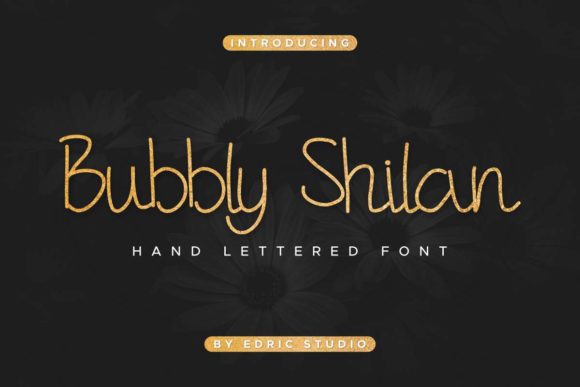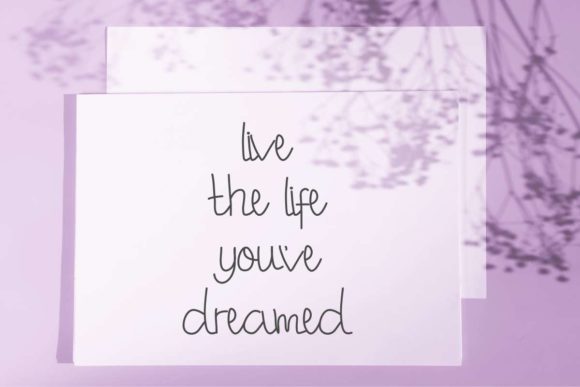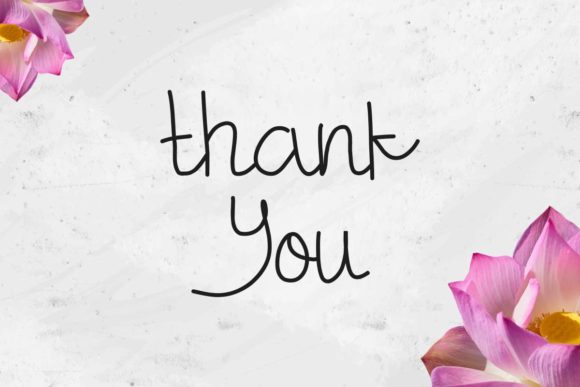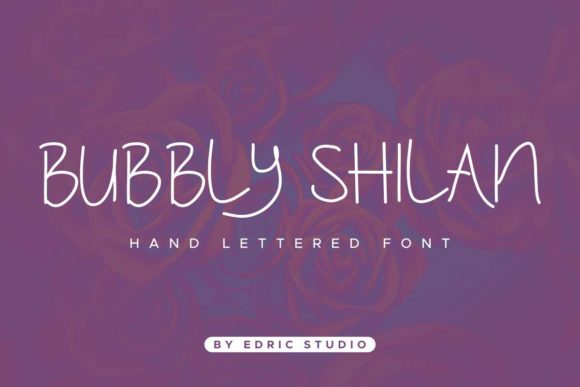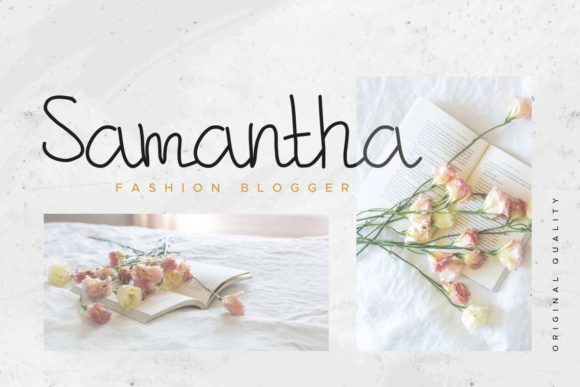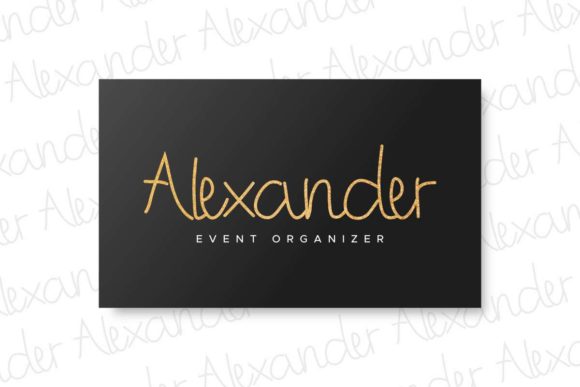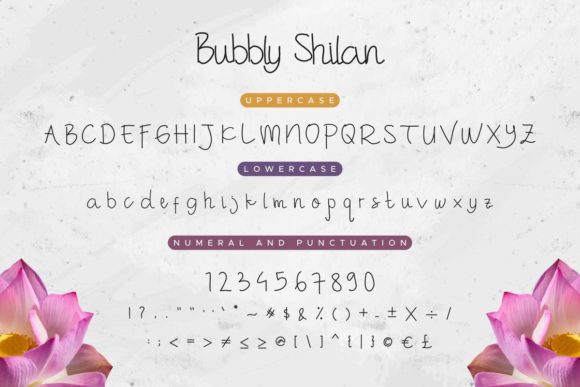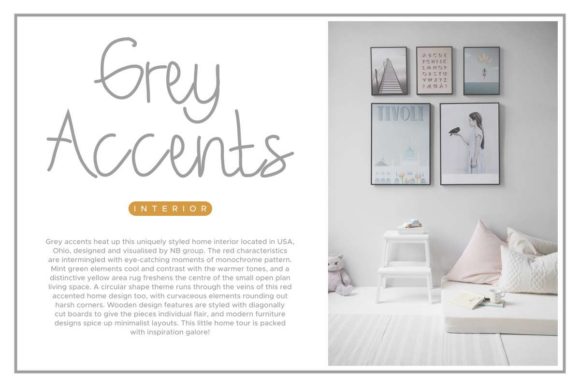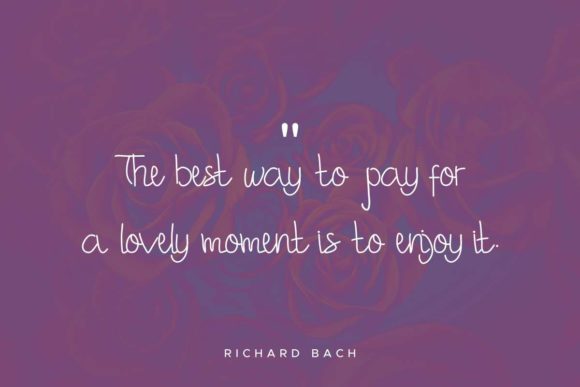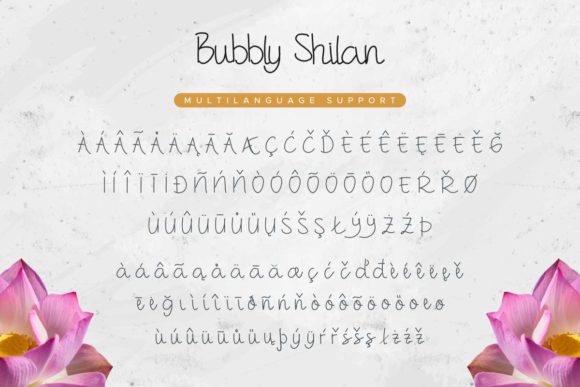
Bubbly Shilan Font
About Bubbly Shilan Font
Bubbly Shilan is a cute and casual handwritten font with an incredibly friendly feel. It features gorgeous swashes and ligatures that make this script incredibly versatile. Whether you’re looking for fonts for Instagram or calligraphy fonts, Bubbly Shilan will turn any project into a true piece of art!